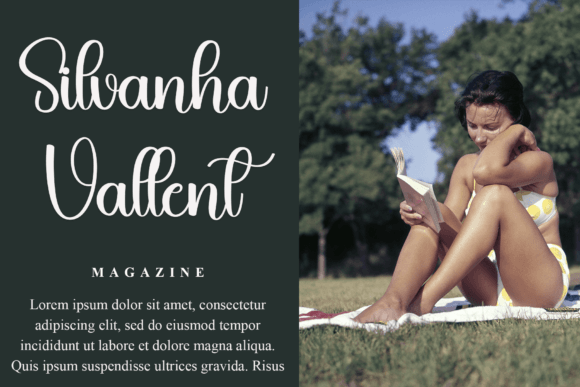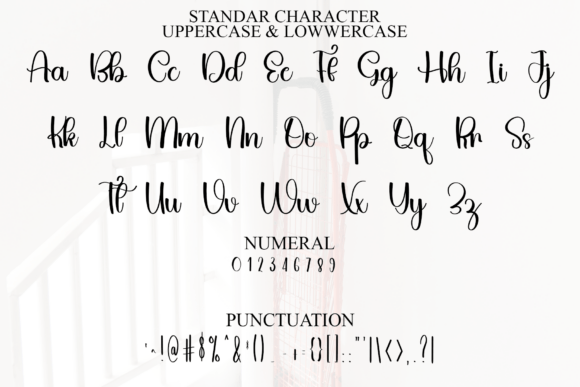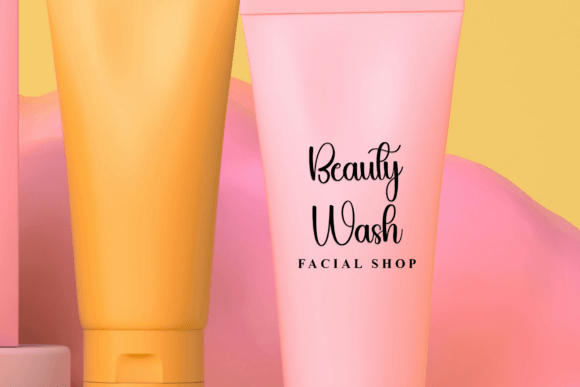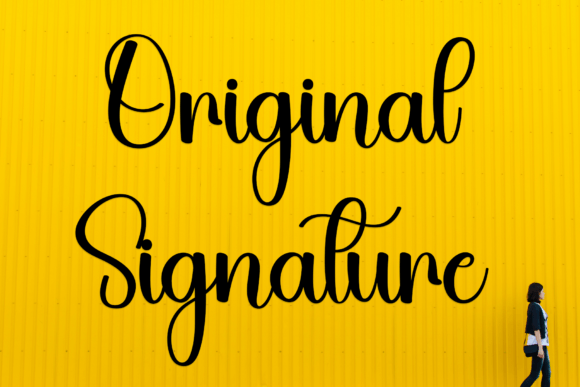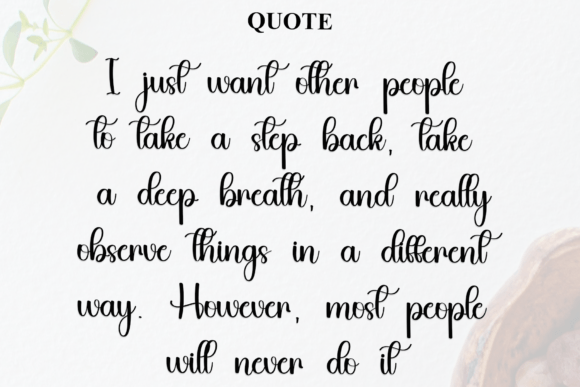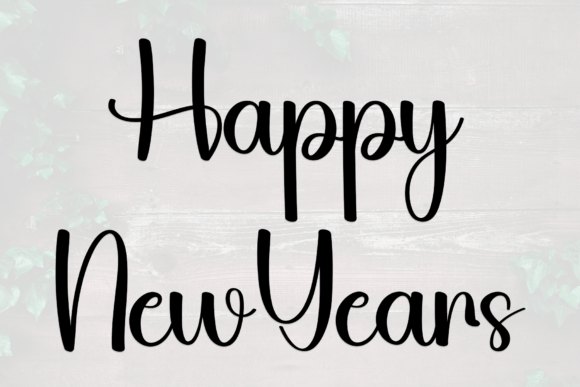
The Magic of Desember Background Font: A Designer’s Delight
I’ll never forget the time I was working on a project for a cozy boutique hotel, and I just couldn’t find the right font to capture their warm and inviting atmosphere. The client wanted something elegant, yet playful, and I was determined to deliver. That’s when I stumbled upon Desember Background Font, a beautiful, flowing handwritten font that instantly stole my heart. In this article, I’ll share my love for this font, its unique features, and provide a comprehensive guide on how to use it to elevate your designs.
- ✅ Elegant and timeless design that’s perfect for a variety of projects
- ✅ Unique, flowing script that’s sure to make your designs stand out
- ✅ Supports OpenType features, glyphs, and stylistic alternates for added versatility
A Few Quirks to Keep in Mind 🤔
- ⚠️ Some letters may require manual kerning for optimal spacing
- ⚠️ Limited availability of certain special characters
The Story Behind Desember Background Font: A Designer’s Inspiration
According to the font’s creator, Desember Background Font was inspired by the beauty of handwritten letters and the elegance of traditional calligraphy. The designer aimed to create a font that would evoke a sense of warmth and sophistication, perfect for a variety of design projects.
Q: What type of projects is Desember Background Font best suited for?
A: Desember Background Font is versatile and can be used for a wide range of projects, from wedding invitations and branding materials to social media graphics and website headers.